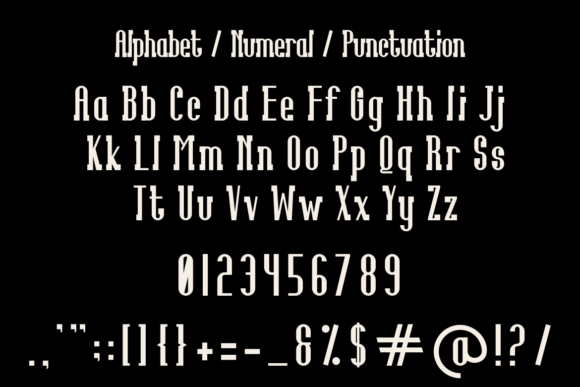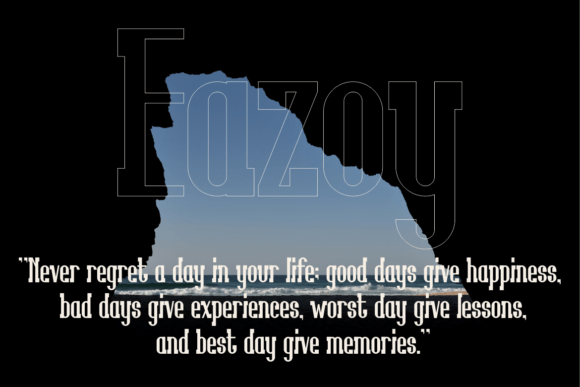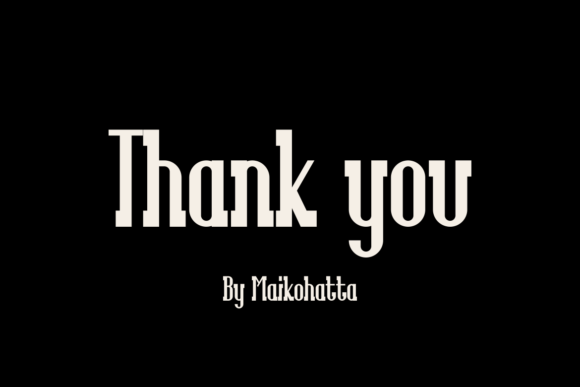
Introduction to Eazoy Font
Have you ever been working on a creative project, pouring your heart and soul into it, and then that perfect font comes along and elevates it to the next level? For designers, finding the right font can be the difference between a good design and an extraordinary one. It’s that moment of excitement when you know you’ve found the perfect match.
One such game-changer is the Eazoy Font, a bold and authentic serif font that’s making waves in the design world. With its high-quality design and versatility, it’s the perfect addition to any branding project, from logos to T-shirt printing, and even esports. Whether you’re a seasoned designer or just starting out, the Eazoy Font is a valuable resource that’s sure to take your work to the next level.
Key Features of Eazoy Font
- High-quality vector design suitable for creative projects
- Comes in a transparent background design resource for flexibility
- Includes a range of font sizes and resolutions for optimal display
- Unique, modern design that is perfect for digital and print applications
- Easy to customize and edit with popular design software
Honest Review: Eazoy Font
As a designer, I’m always on the lookout for high quality fonts that can elevate my creative project. I recently came across the Eazoy Font, and I must say it’s a great addition to any design resource.
One of the things that works well with the Eazoy Font is its clean and modern aesthetic. The font is highly versatile and can be used for a wide range of designs, from logos to typography-heavy projects. I also appreciate that it’s available for free download, making it an excellent choice for designers on a budget.
Some of the standout features of the Eazoy Font include:
- High quality design that’s perfect for creative projects
- Transparent background, allowing for easy customization
However, I do have a few limitations to note:
⚠️ The font doesn’t include a lot of character variations, which may limit its use in certain projects. Additionally, the font may not be suitable for use in very small sizes.
Overall, I’m impressed with the Eazoy Font and would recommend it to any designer looking for a high-quality, free font to add to their design resource. With its clean design and transparent background, it’s a great choice for any creative project.
The Eazoy Font is a high-quality design resource that can elevate any creative project. With its unique and stylish design, it’s perfect for designers looking for a new and exciting element to add to their work.
Tips for Getting the Most Out of Eazoy Font
To get the most out of the Eazoy Font, try using it with a transparent background to create a sleek and modern design. You can also experiment with different font sizes and colors to create a unique and eye-catching look.
The Eazoy Font is perfect for use in a variety of creative projects, including logos, business cards, and brochures. It’s also great for use in digital designs, such as website headers and social media graphics.